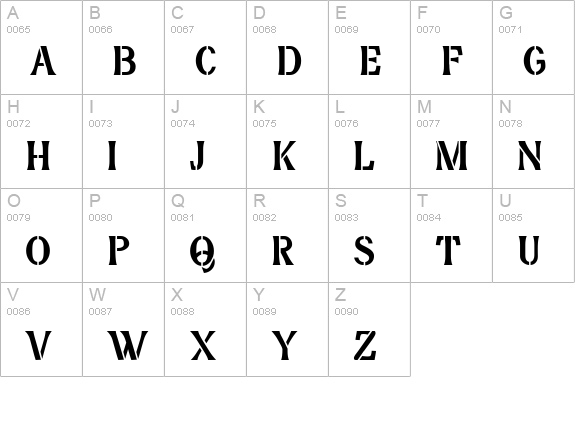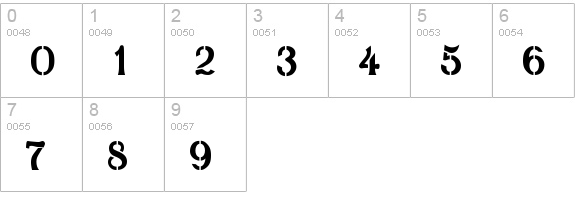
DavidFarewellStencil Font Details
DavidFarewellStencil font is a unique and stylish typeface that brings a modern and artistic touch to any design project. With its elegant stencil design, this font is perfect for creating eye-catching headlines, logos, posters, and more. The intricate details of each letter give off a sophisticated and professional look that will surely make your work stand out. What's even better is that DavidFarewellStencil font is available for free download at FontsMarket.com. You can easily access this font and use it in your personal or commercial projects without any cost. So why wait? Enhance your designs with the beauty of DavidFarewellStencil font today!